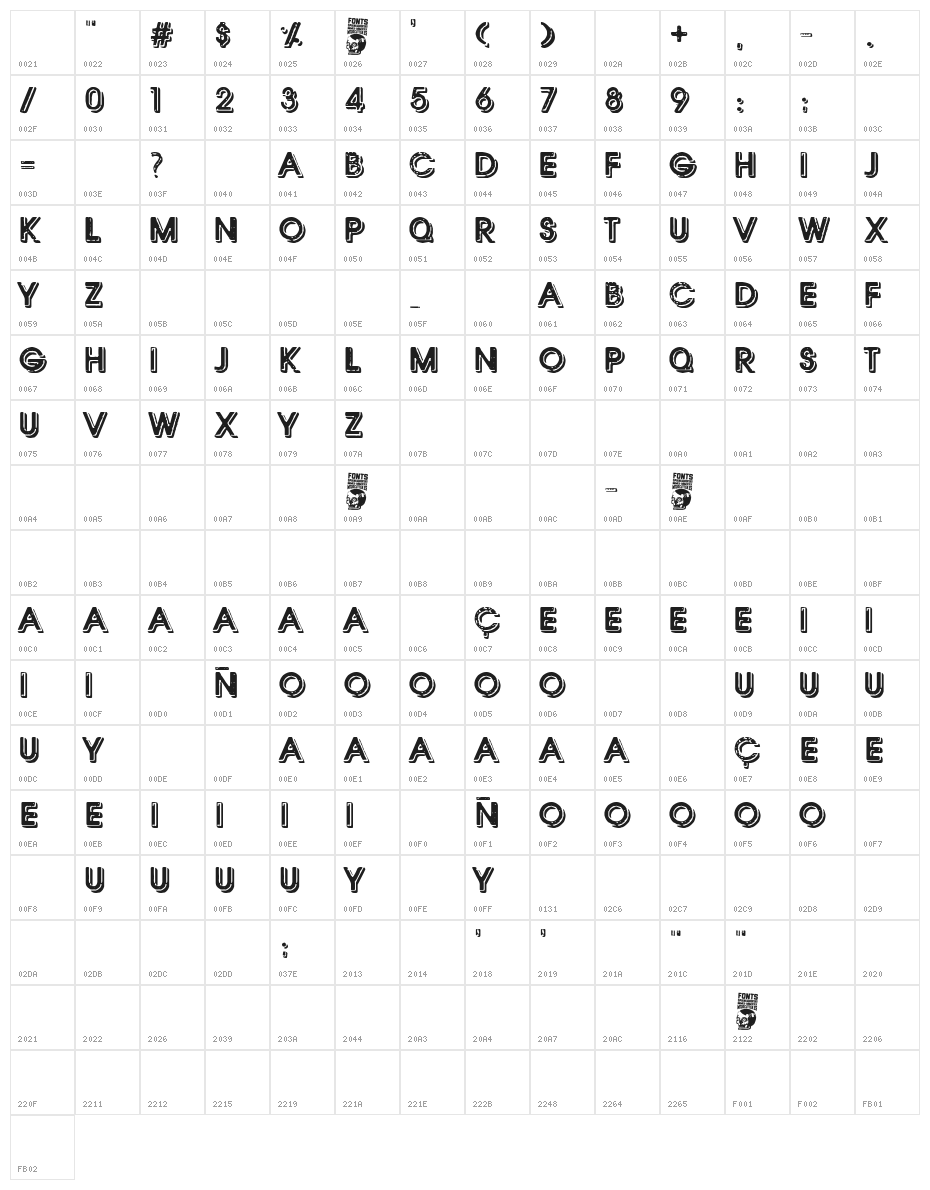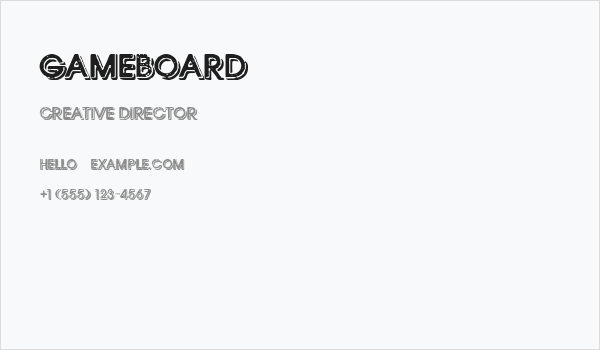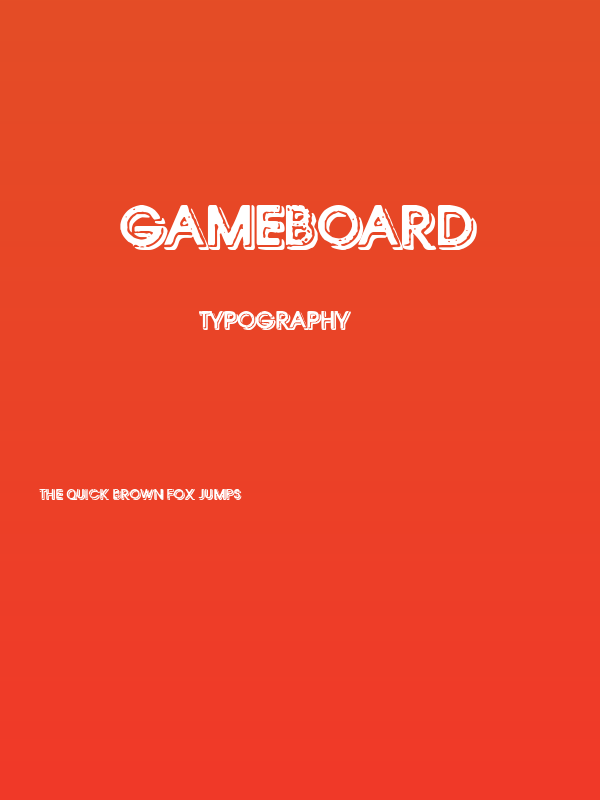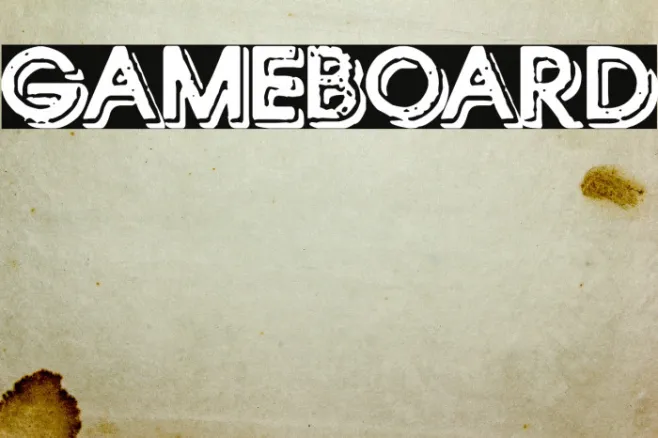
Gameboard Font
Gameboard Description
This font features a bold, distressed style with a rugged, textured appearance that gives it a worn, vintage feel. The characters are uppercase and lowercase, with numbers and a variety of special symbols. Each letter has a unique, weathered look, as if it has been eroded or stamped repeatedly. The boldness of the font makes it stand out, while the distressed elements add character and depth. This style is reminiscent of old signage or typewriter fonts, making it ideal for projects that require a touch of nostalgia or a gritty, urban aesthetic.
| Proposed Projects | Ideal for vintage-themed posters, album covers, branding for rustic or industrial products, and any design needing a rugged, retro touch. |